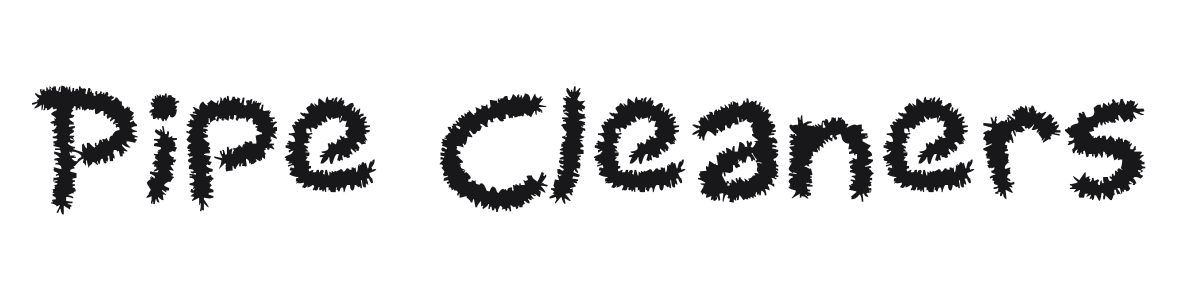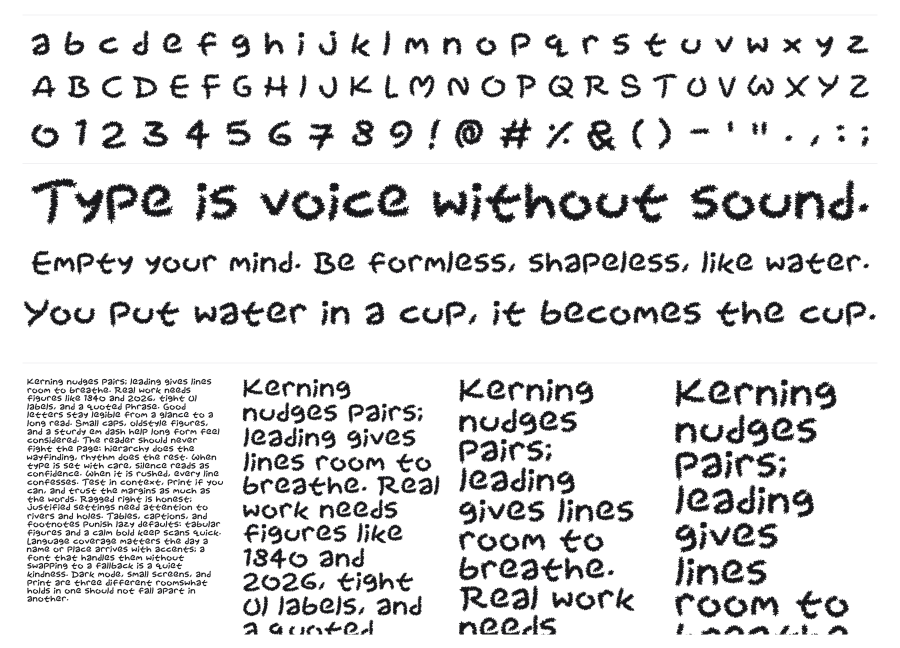
Pipe Cleaners
Pipe Cleaners is a novelty display font that wraps every stroke in dense fuzzy bristles, replicating the look of bent chenille pipe cleaners. The rounded, wobbly construction gives it an unmistakably handmade, craft-table feel. Great for children's projects, party materials, or any design that needs tactile charm.